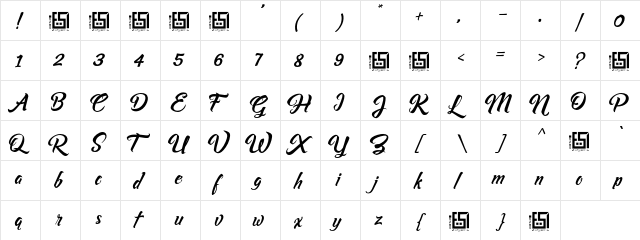
Asiyah Script Regular
Design Context for Asiyah Script Typeface
Asiyah Script flows with the natural rhythm of handwritten lettering, making it ideal for designs that call for warmth and personal expression.
Font Pairing: Combine Asiyah Script with a simple geometric sans for maximum contrast — the tension between flowing curves and clean structure is a classic typographic pairing.
Pro Tip: Pair Asiyah Script with a clean sans-serif for supporting text. The contrast between fluid script and geometric structure creates an elegant typographic hierarchy.